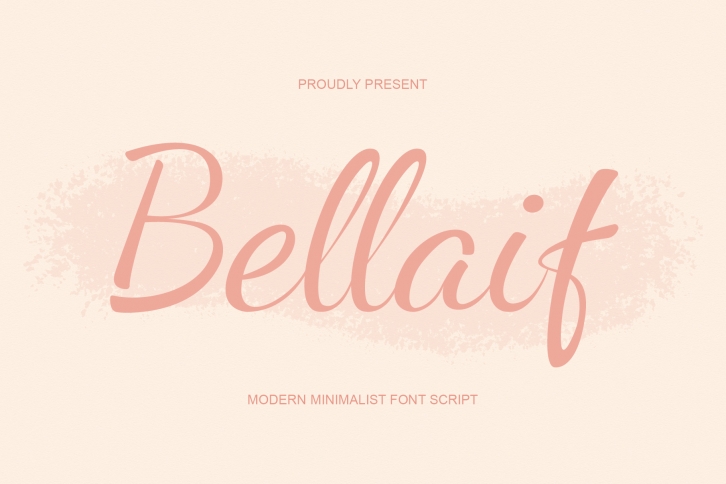
Bellaif is a sweet and friendly handwritten font. Its natural and unique style makes it incredibly fitting to a large pool of designs. The only limit is your imagination!